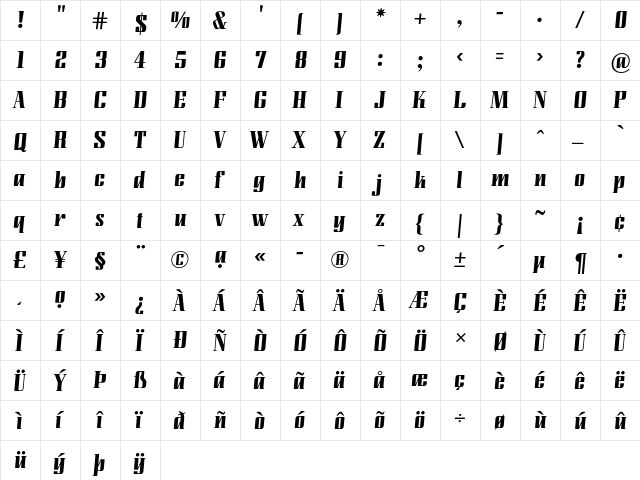
LundaModern Bold
Design Context for LundaModern Typeface
LundaModern is a composed and adaptable typeface that performs quietly and consistently across a wide range of design contexts. The heavy weight commands attention and anchors typographic hierarchies.